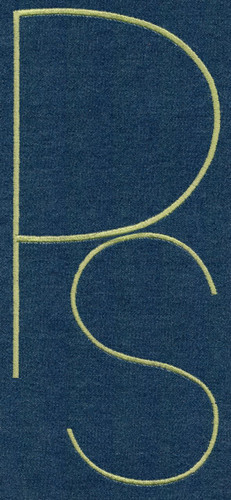
609 Hand Printed Satin JUMBO Font
Hand Printed Satin JUMBO Font comes in 5", 6", 7", 8" and 9" heights based on the capital "A". All sizes included in purchase price. All sizes finished in thin satin stitch. Includes uppercase letters, lowercase letters, numbers and six punctuation marks.